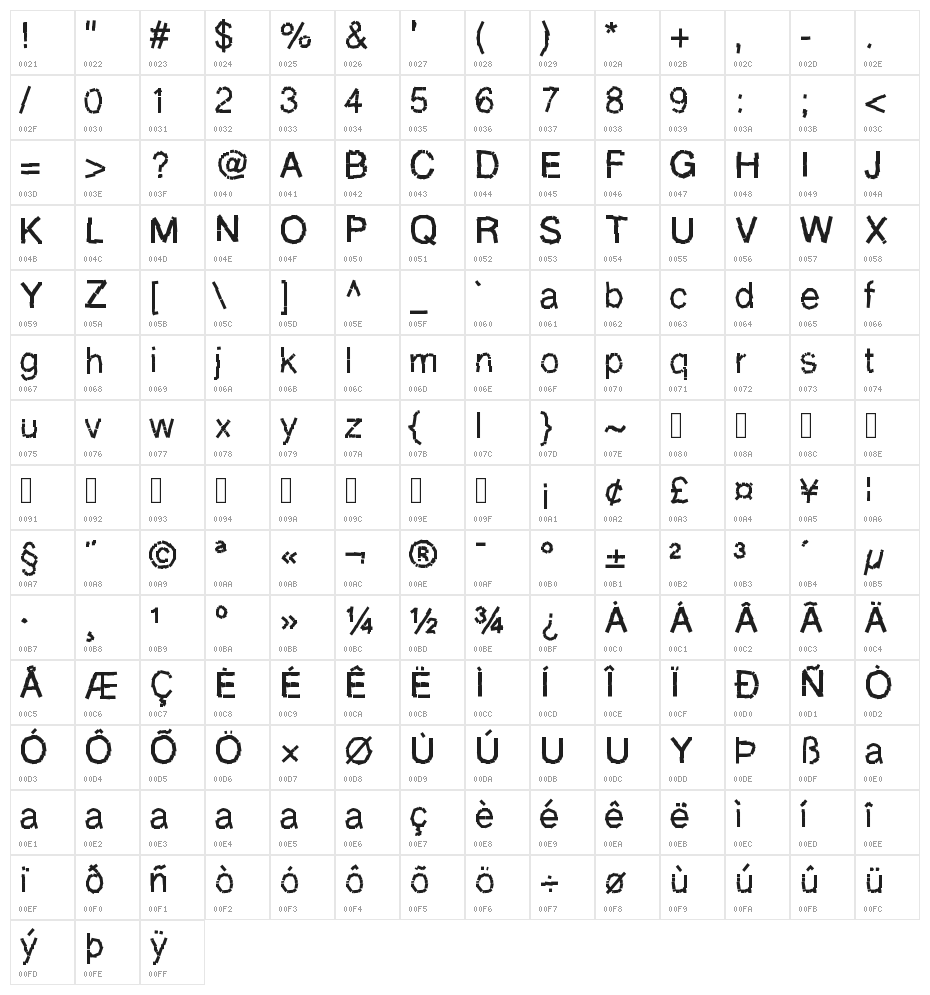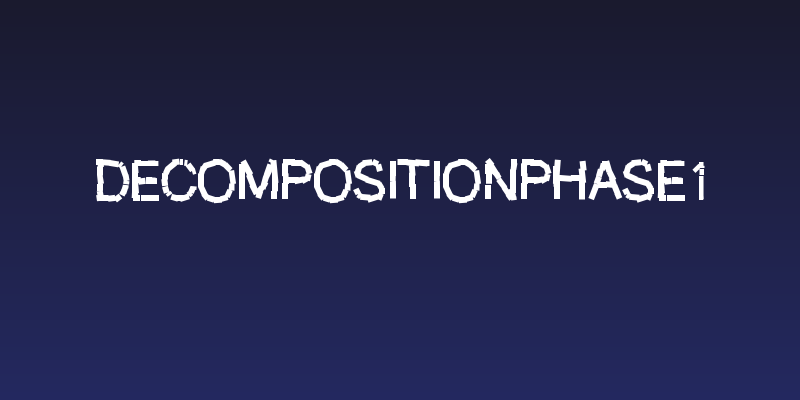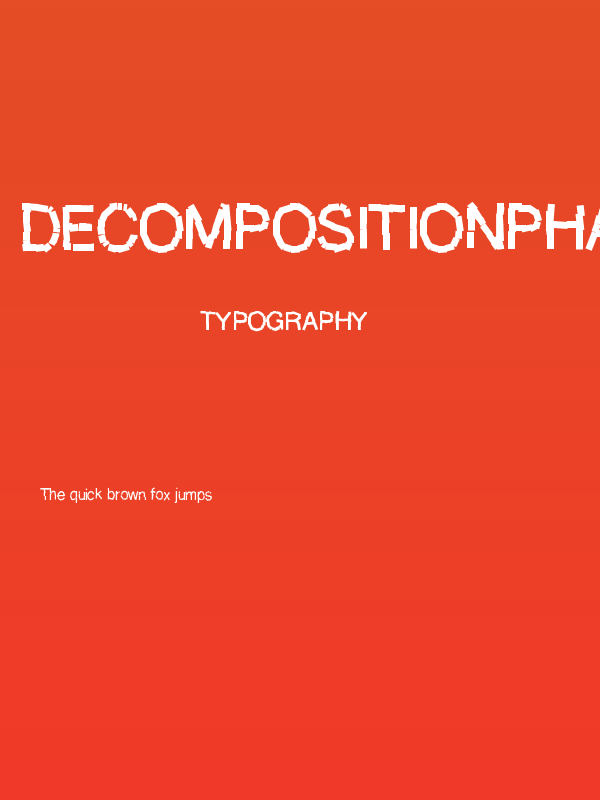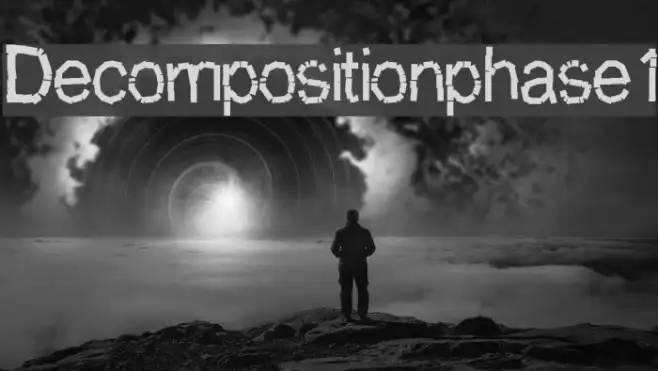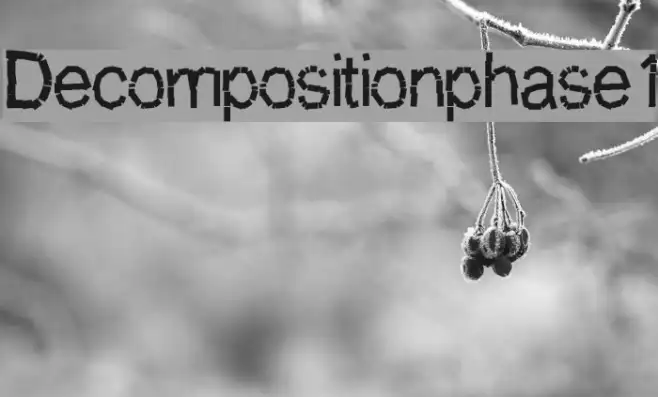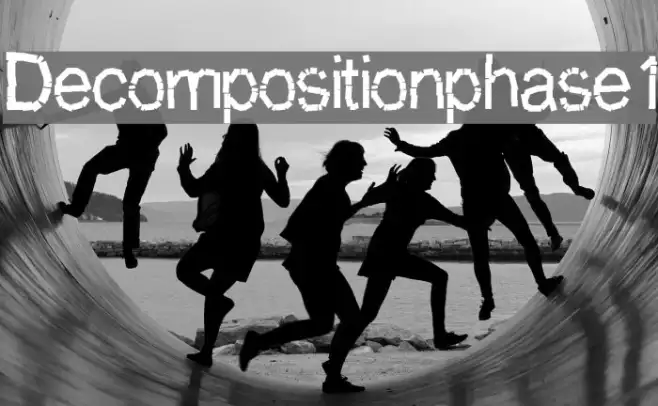
Decompositionphase1 Font
Decompositionphase1 Description
This font features a unique, fragmented design that gives it a deconstructed and edgy appearance. The characters are composed of irregular, angular segments that create a sense of movement and dynamism. Despite its unconventional style, the font maintains readability with clear distinctions between each letter and number. The uppercase and lowercase letters share a consistent design language, while the numerals and special characters complement the overall aesthetic. This font is ideal for projects that require a bold, modern, and artistic touch.
| Overall Style | Modern, Artistic |
| Proposed Projects | Ideal for album covers, posters, modern art projects, and edgy branding. |